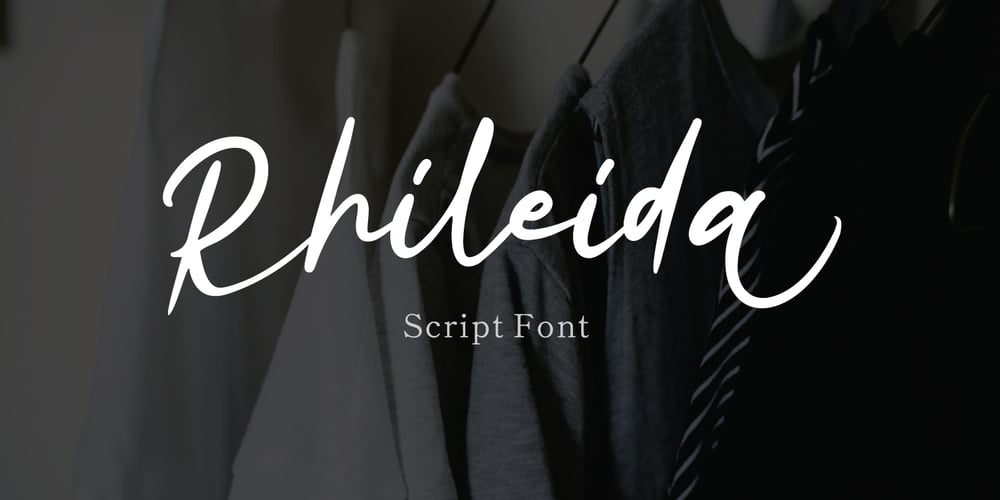
Rhiledia Font Family was designed by Fadli Ramadhan Iskandar and published by Attype Studio. Rhiledia contains 1 styles and family package options. Rhileida is a beauty script font with ending swash. Fall in love with its incredibly versatile style and use it to create spectacular designs!Rhileida is perfect for branding, logo, invitation, stationery, social media post, product packaging, merchandise, blog design, game titles, cute style design, Book/Cover Title and more.What’s Included :- Ending Swash- Ligatures- Multilingual Support —Hope you enjoy with our font!Attype Studio